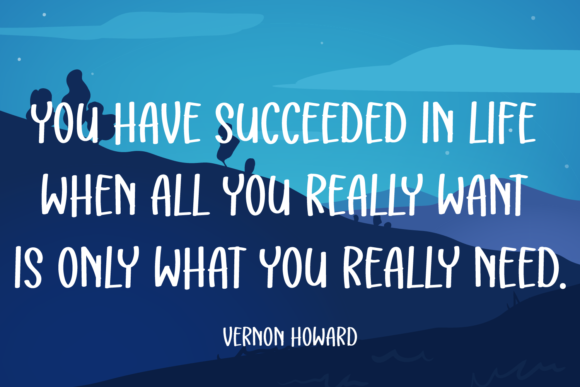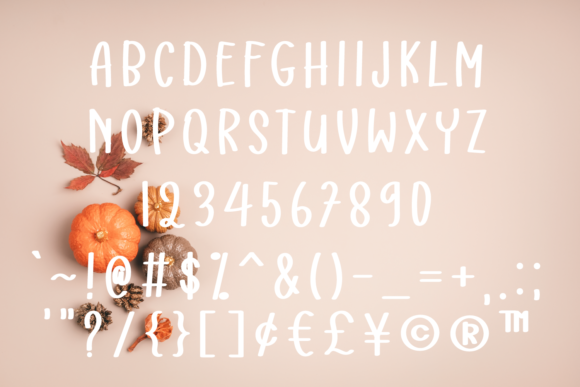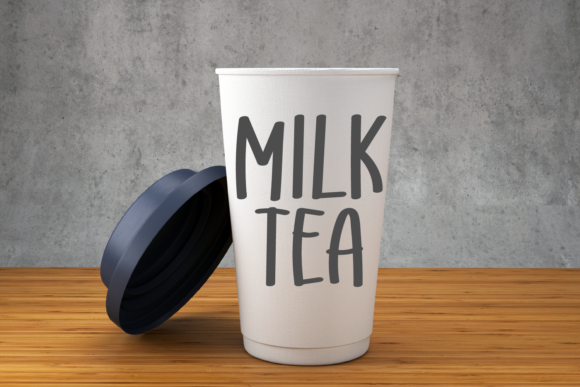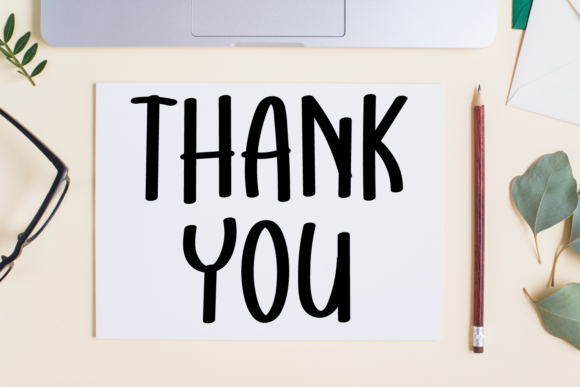
Cute Mountains Font: Elevate Your Designs with a Simple yet Charming Display Font
Are you a designer or crafter looking for a font that can add a touch of simplicity and casual charm to your creations? Look no further than Cute Mountains Font. This adorable display font is perfect for a wide range of design projects, from branding and advertising to crafting and DIY tutorials. In this article, we’ll take a closer look at Cute Mountains Font and explore its features, benefits, and uses.
What is Cute Mountains Font?
Cute Mountains Font is a simple and casual display font designed to add a touch of whimsy and charm to your designs. With its clean lines, rounded edges, and playful feel, this font is perfect for creating eye-catching headings, titles, and text displays. Whether you’re designing a logo, brochure, or social media graphic, Cute Mountains Font is sure to make your creation stand out.
Key Features of Cute Mountains Font
So, what makes Cute Mountains Font so special? Here are some of its key features:
- Simple and Casual Design: Cute Mountains Font has a simple and casual design that makes it perfect for a wide range of design projects.
- Playful Feel: The font’s rounded edges and clean lines give it a playful feel that’s sure to appeal to designers and crafters.
- Versatile: Cute Mountains Font can be used for a wide range of design projects, from branding and advertising to crafting and DIY tutorials.
- Easily Readable: The font is easily readable, even at small sizes, making it perfect for use in body text or captions.
Benefits of Using Cute Mountains Font
So, why should you choose Cute Mountains Font for your design projects? Here are some of the benefits of using this charming font:
- Adds a Touch of Whimsy: Cute Mountains Font adds a touch of whimsy and charm to your designs, making them more eye-catching and engaging.
- Elevates Your Designs: This font has the potential to elevate any creation, making it perfect for designers and crafters who want to take their designs to the next level.
- Perfect for Branding and Advertising: Cute Mountains Font is perfect for use in branding and advertising projects, such as logos, brochures, and social media graphics.
- Great for Crafting and DIY Tutorials: This font is also great for use in crafting and DIY tutorials, such as knitting patterns, sewing tutorials, and recipe cards.
How to Use Cute Mountains Font
Using Cute Mountains Font is easy. Here are some tips for incorporating this font into your design projects:
- Use it as a Display Font: Cute Mountains Font is perfect for use as a display font, making it great for headings, titles, and text displays.
- Pair it with Other Fonts: This font pairs well with other fonts, making it easy to create visually appealing combinations.
- Experiment with Different Sizes and Colors: Don’t be afraid to experiment with different sizes and colors to find the perfect look for your design.
In conclusion, Cute Mountains Font is a simple and casual display font that’s perfect for designers and crafters looking to add a touch of whimsy and charm to their creations. With its clean lines, rounded edges, and playful feel, this font is sure to elevate any design project. Whether you’re designing a logo, brochure, or social media graphic, or creating a knitting pattern or recipe card, Cute Mountains Font is a great choice.